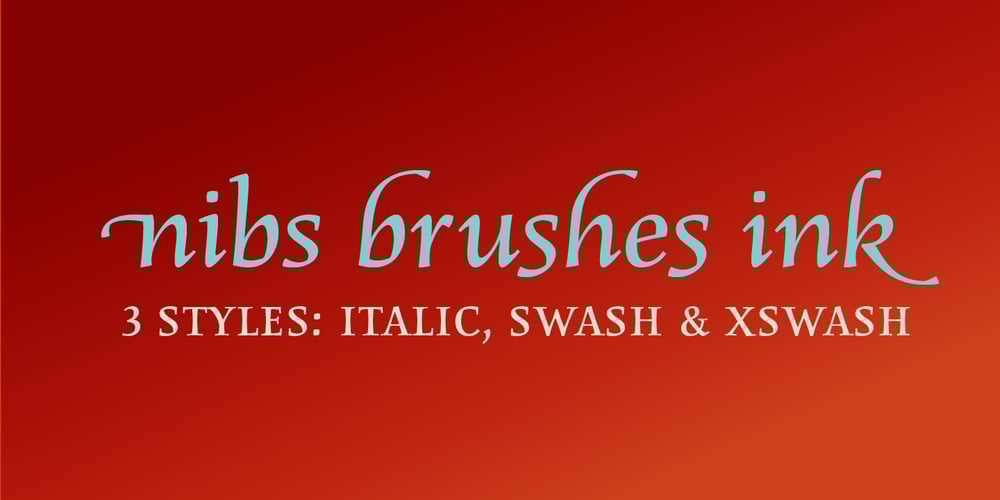
Basile Font Family was designed by Dario Manuel Muhafara and published by Tipo. Basile contains 1 styles and family package options. Basile is the conclusion of a process that began with the learning of italic handwriting in a roballos-Naab studio course. In this workshop I developed a variation of chancery handwriting which had a more pronounced wider than its historical model. While making the digitalization, the forms were modified to obtain a similar spirit to the one in the handwriting, but thinking about the text in small sizes. Also incorporating three sets of forms enlarged the family: italic, swash and extra swash. And the addition of initials and terminals sets.